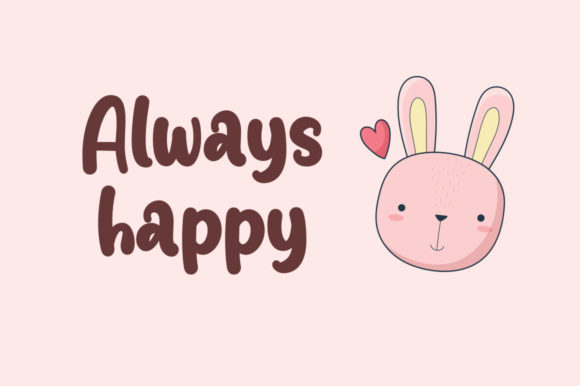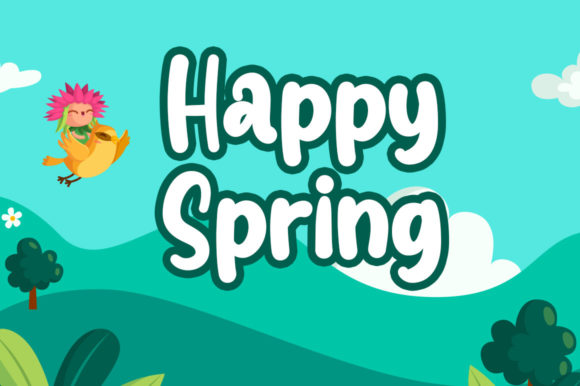
Berthany Font
db-ku.com - Script & Handwritten -- Berthany is a cool and bold handwritten font. Whether you’re looking for fonts for Instagram or calligraphy scripts for DIY projects, this font will turn any creative idea into a true piece of art!